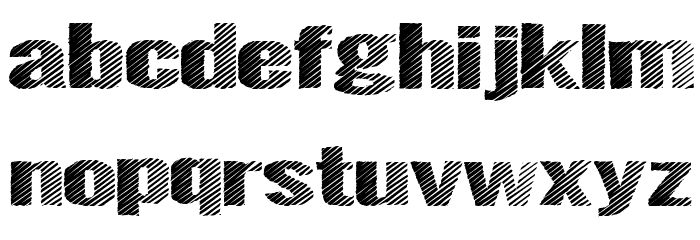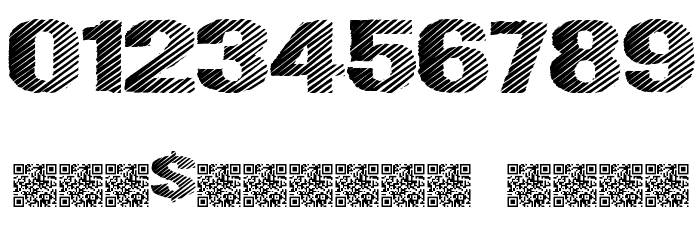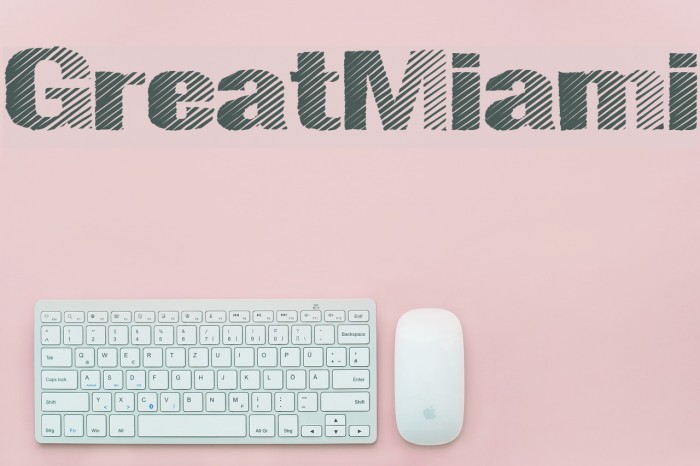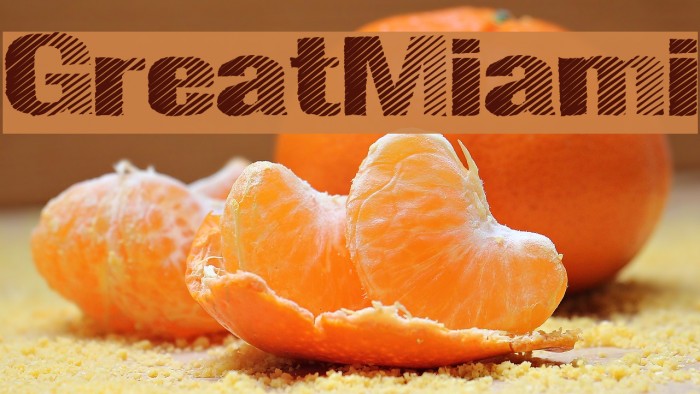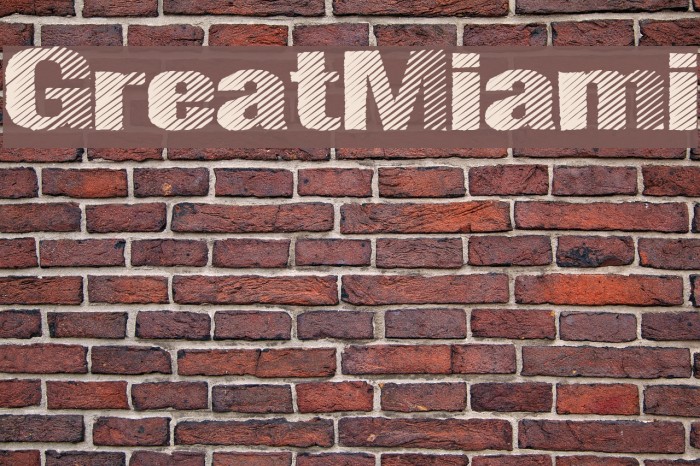
GreatMiami Font
This font features a bold, dynamic style with diagonal hatching that adds a textured, dimensional effect to each character. The uppercase and lowercase letters maintain a consistent width, creating a uniform appearance. The numbers and special characters follow the same design, ensuring a cohesive look across all elements. The font's unique patterning makes it stand out, while its bold weight ensures readability even at smaller sizes. This design is both modern and eye-catching, suitable for projects that require a distinctive and memorable typeface.
A bold, textured font with diagonal hatching for a dynamic and modern look.
- Proposed Projects: Ideal for branding, posters, headlines, and any design needing a bold, unique typeface.
- Overall Style: Modern, Decorative